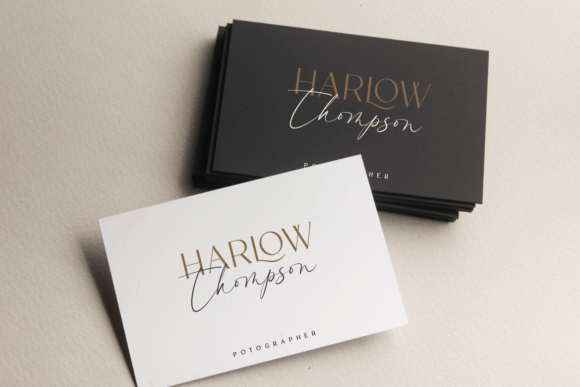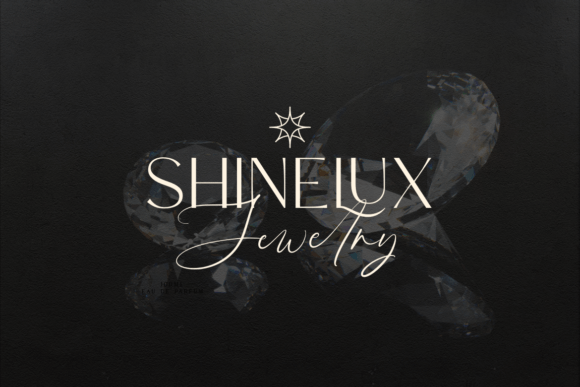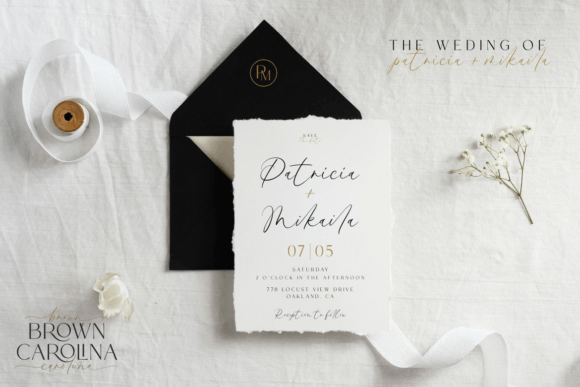
Brown Carolina Duo Font
Unveiling “Brown Carolina”, a state-of-the-art font duo with a tasteful fusion of contemporary sans-serif design and the creative flair of a script typeface. This artistic twosome is thoughtfully curated to augment your design, providing you with versatility, panache, and a hint of everlasting allure. Brown Carolina, in its script iteration, boasts an abundance of unique alternate characters and ligatures, empowering you to tailor your text with ease.